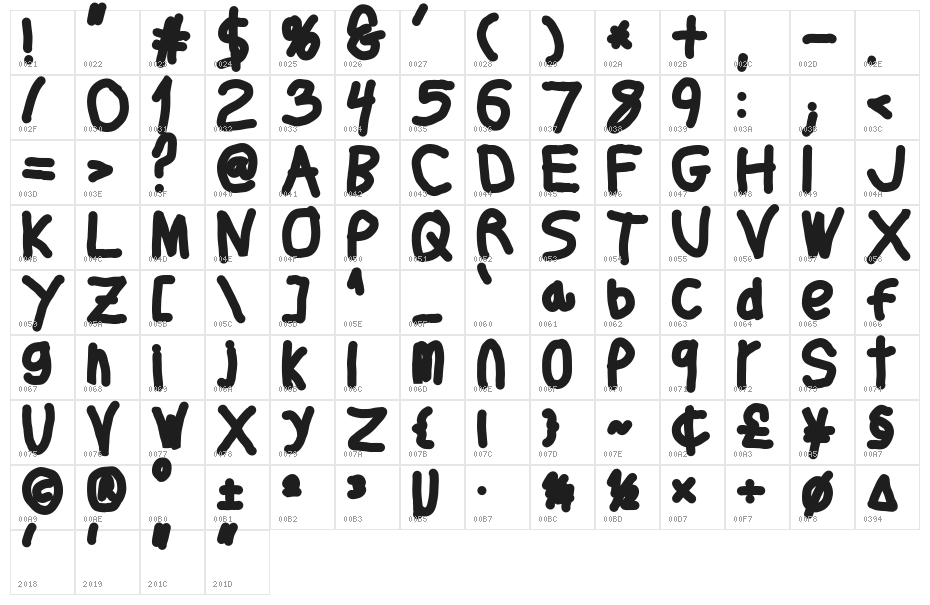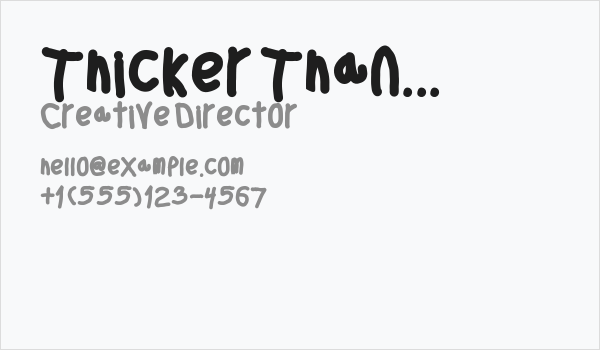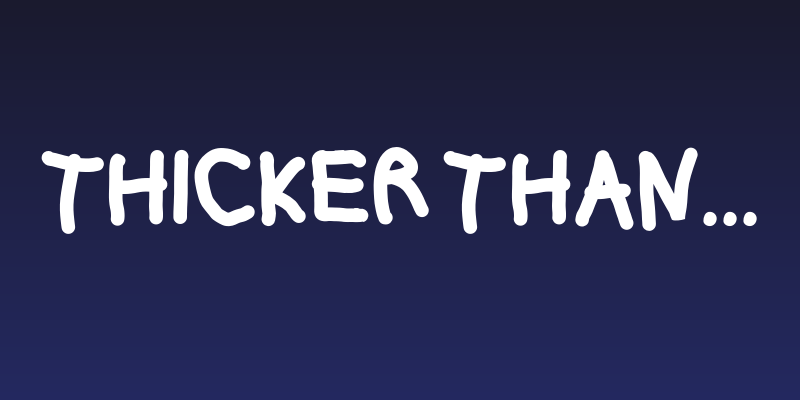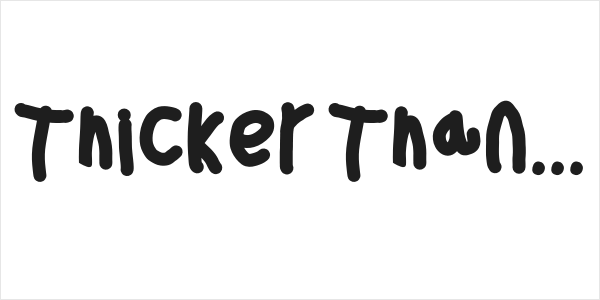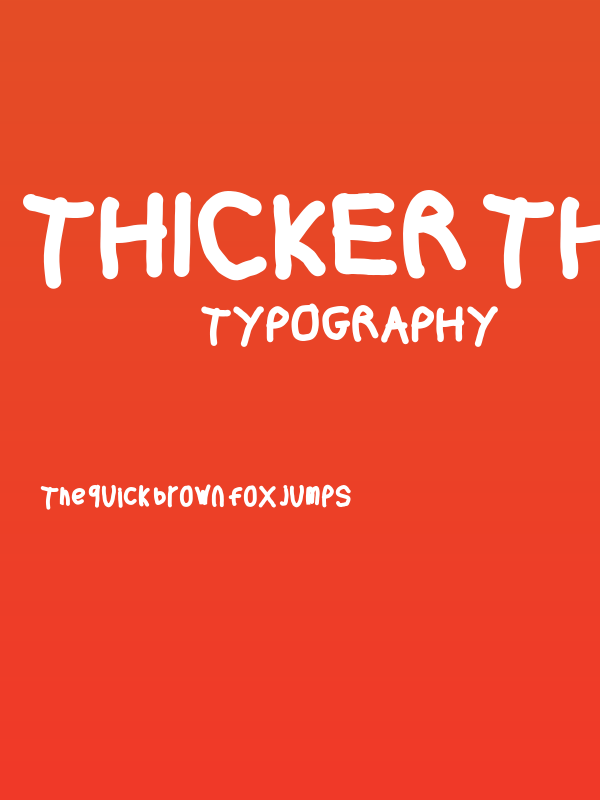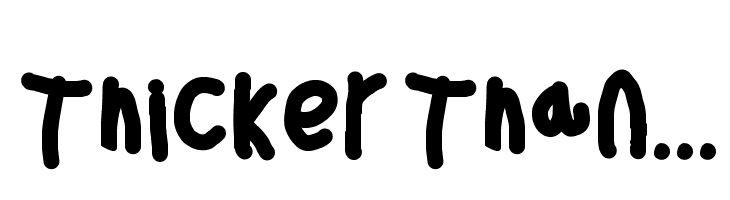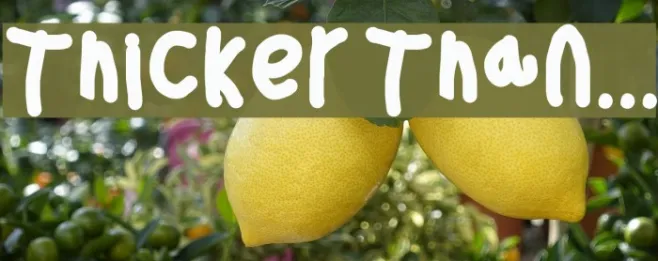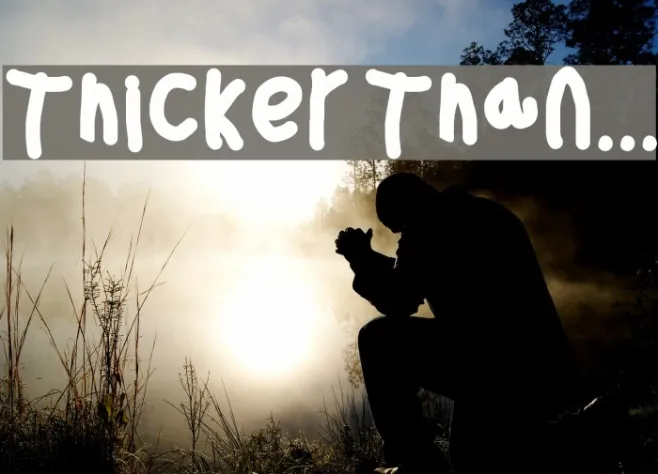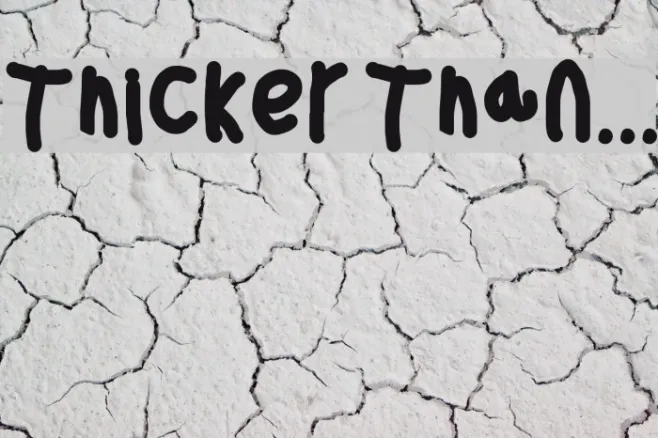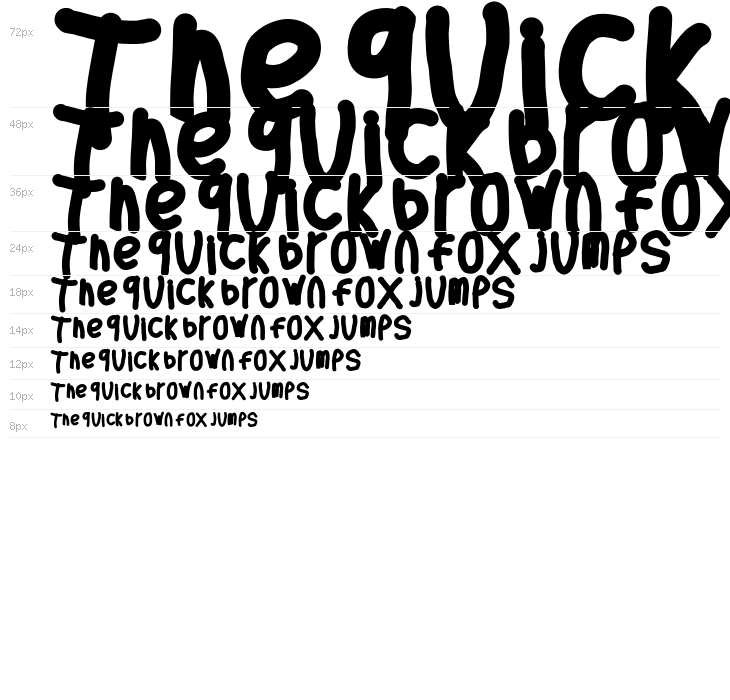
Thicker Than... Font
Thicker Than... Description
This font features bold, rounded characters with a playful and informal style. The letters are thick and have a hand-drawn appearance, giving them a friendly and approachable look. The uppercase and lowercase letters maintain a consistent thickness, while the numbers and special characters follow the same design ethos. The overall appearance is casual and slightly whimsical, making it suitable for projects that require a fun and engaging aesthetic. The font's boldness ensures high readability, even at smaller sizes.
| Overall Style | Casual and playful |
| Use Case | Headlines, Logos, Informal text |
| Proposed Projects | Ideal for children's books, playful branding, casual invitations, and social media graphics. |